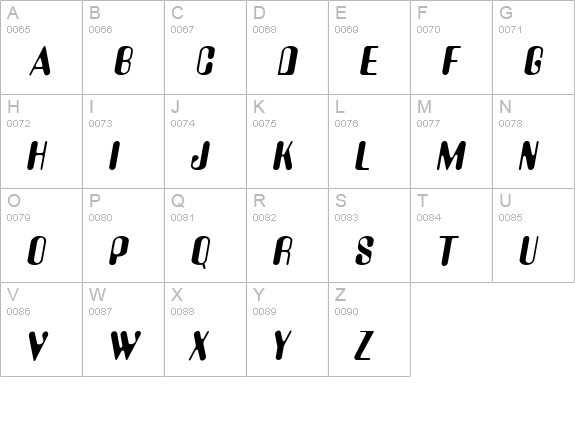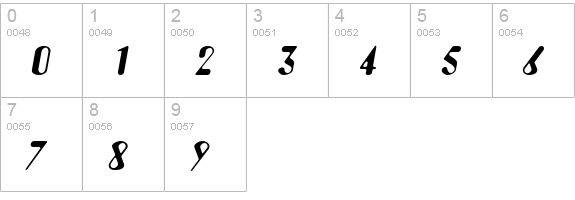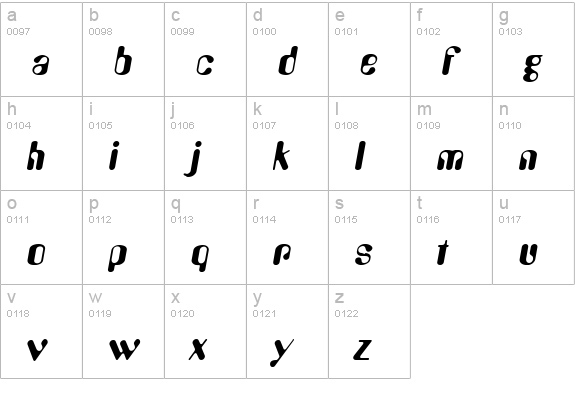
A770-Deco-Italic is a distinctive, italic variant in the A770 typeface family \xE2\x80\x94 well suited to design and typography projects.
The A770-Deco-Italic font is a stunning display font that exudes elegance and sophistication. Its sleek and stylish design is perfect for adding a touch of class to any project or design. The italicized characters give this font a sense of movement and flair, making it ideal for headlines, invitations, and other creative endeavors. What makes the A770-Deco-Italic font even more appealing is that it is completely free to download! You can easily access this beautiful font at FontsMarket.com and start using it in your projects right away. Whether you're looking to add a touch of charm to your designs or make a bold statement, the A770-Deco-Italic font is sure to impress with its unique style and versatility.